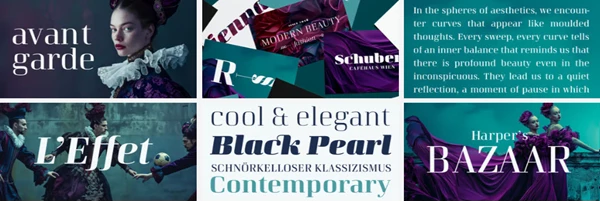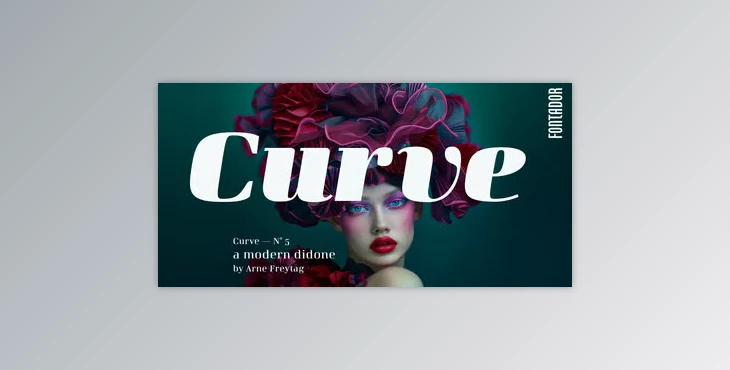
My Fonts - Curve - Modern Neo-Classical Typeface:
The Curve typeface family is a modern neo-classical concept and was born of the Didone genre with a focus on modern demand. It showcases a uniquely large x-height to complement not just the extra bolds, but additionally, its more narrow and semi-bold forms, which boast an open, expansive appearance. The typeface boasts a total of 616 glyphs, including small caps, numbers, and ligatures across 10 weights, making it a diverse addition to any graphic designer's arsenal.
A contemporary serif typeface, Curve is perfect for logos, branding, magazines, and editorial. It is an industry standard for creating trends in fashion and design. It can take on both big and small challenges with ease and legibility.